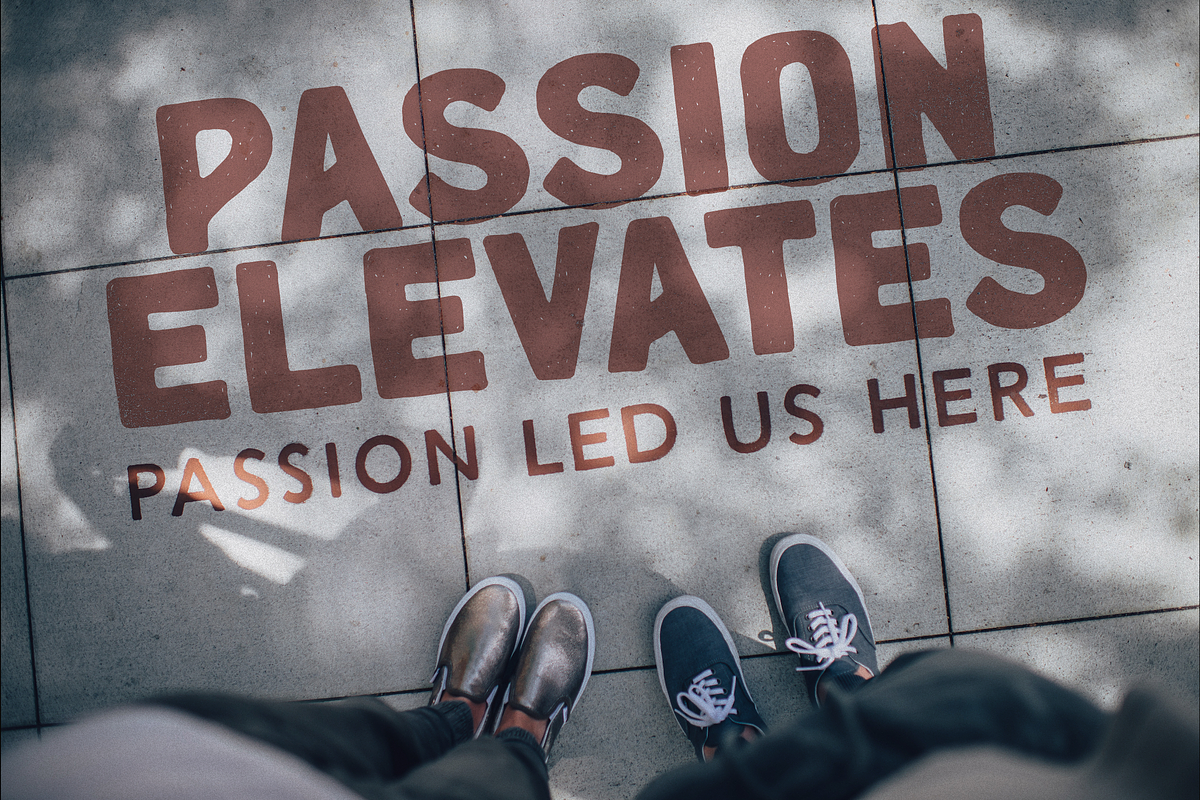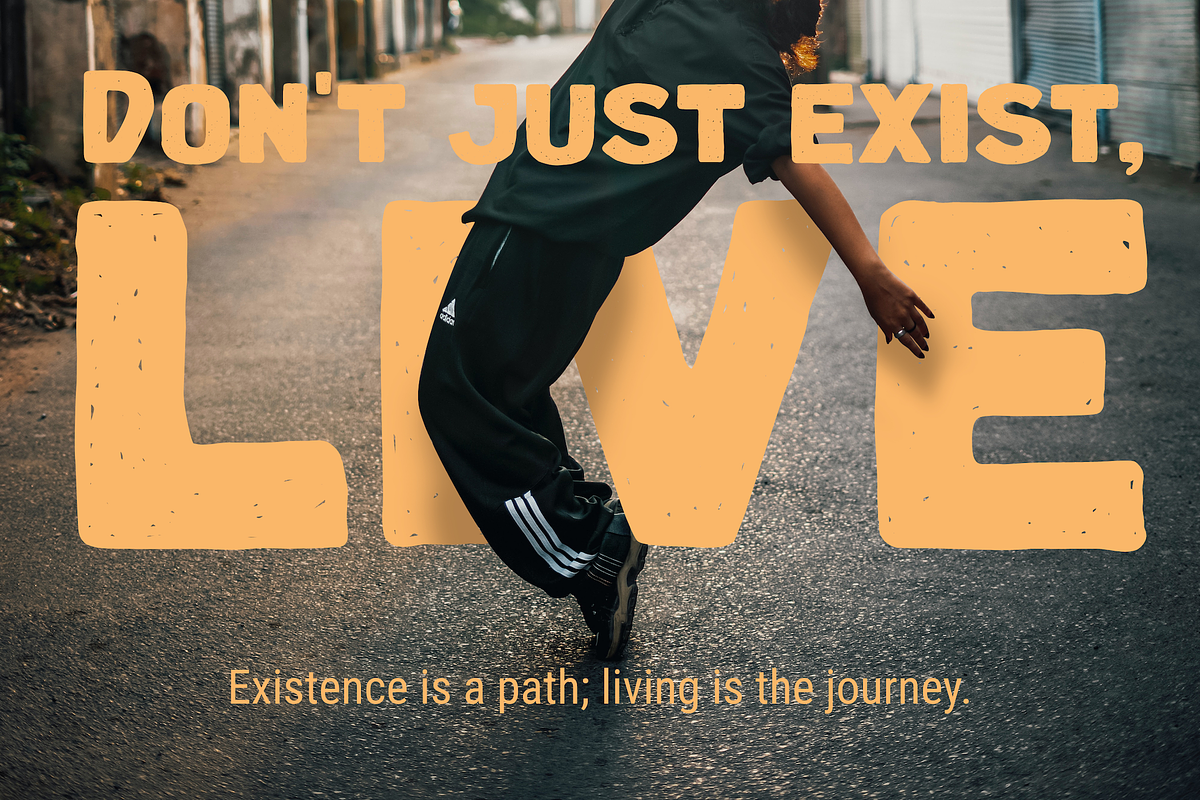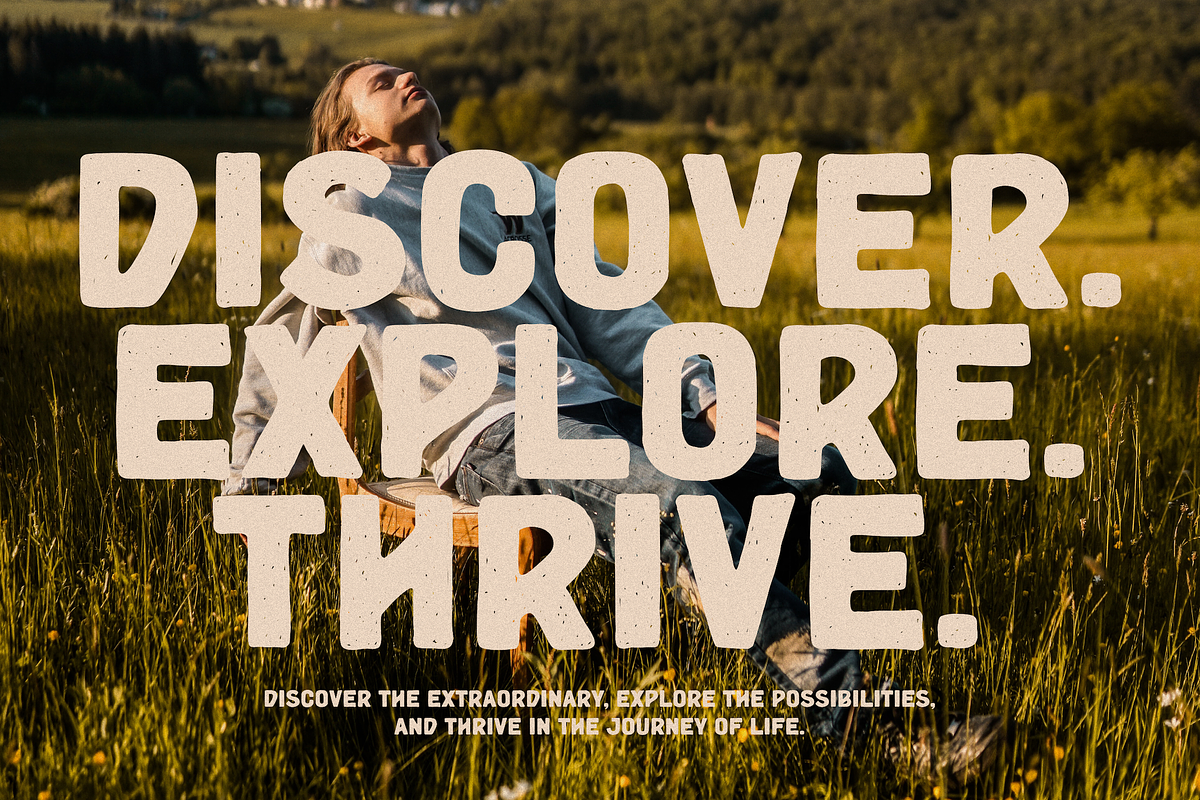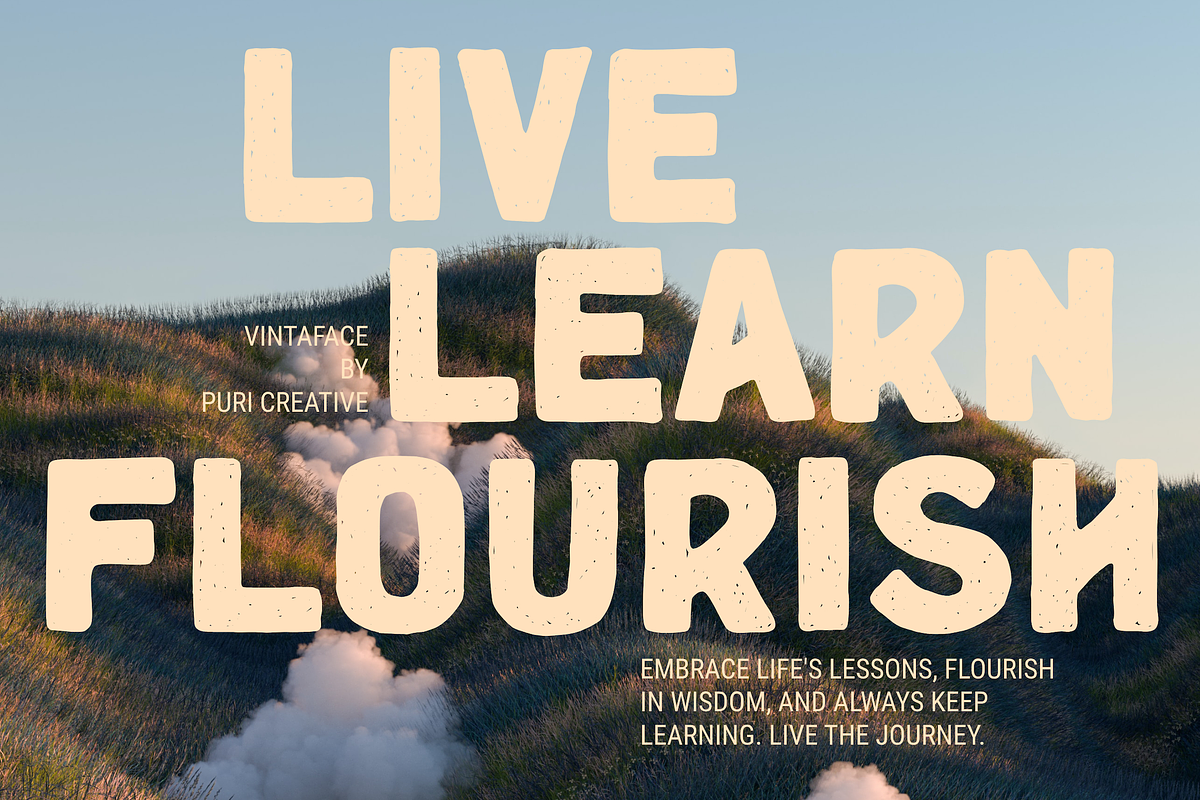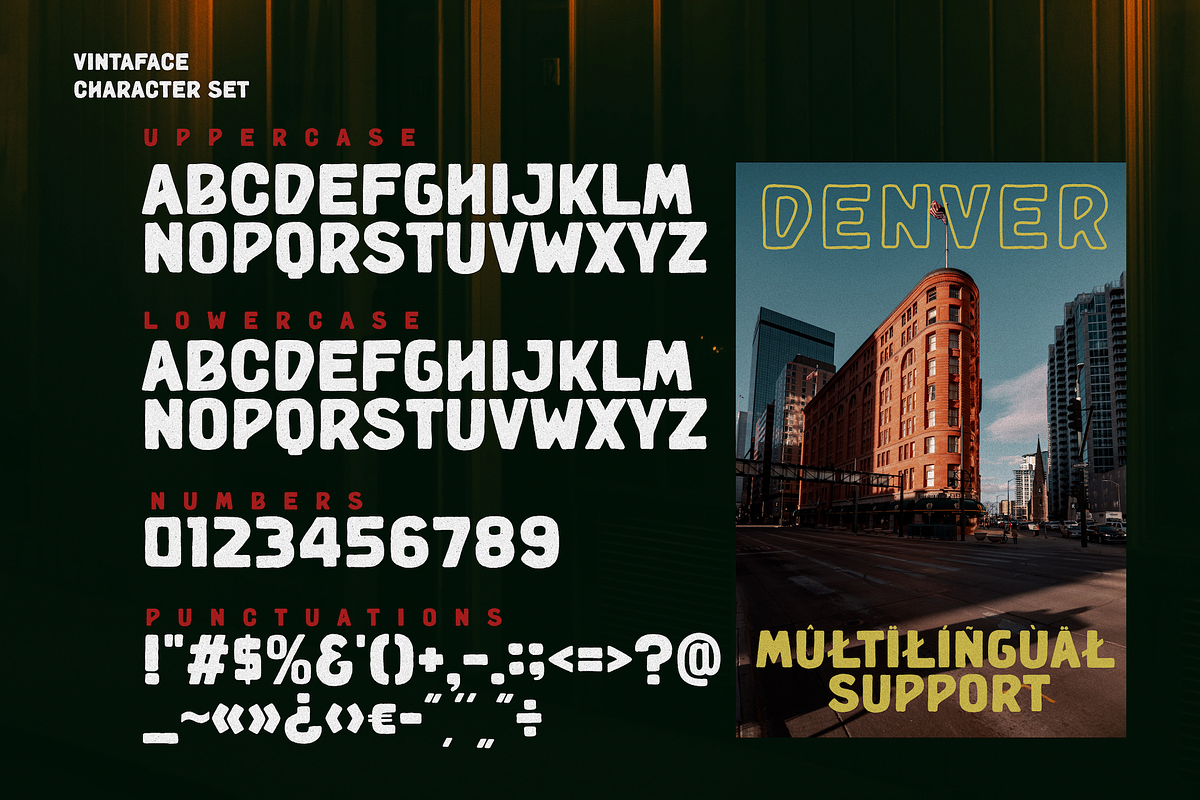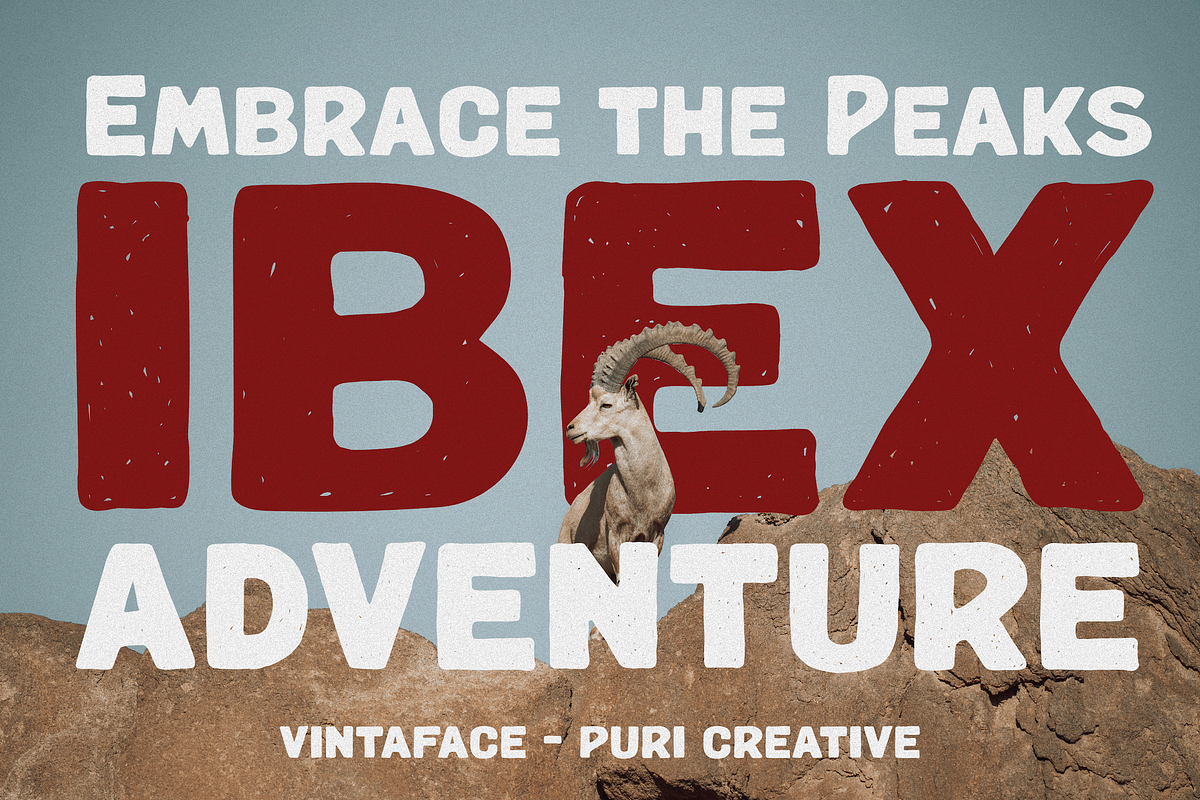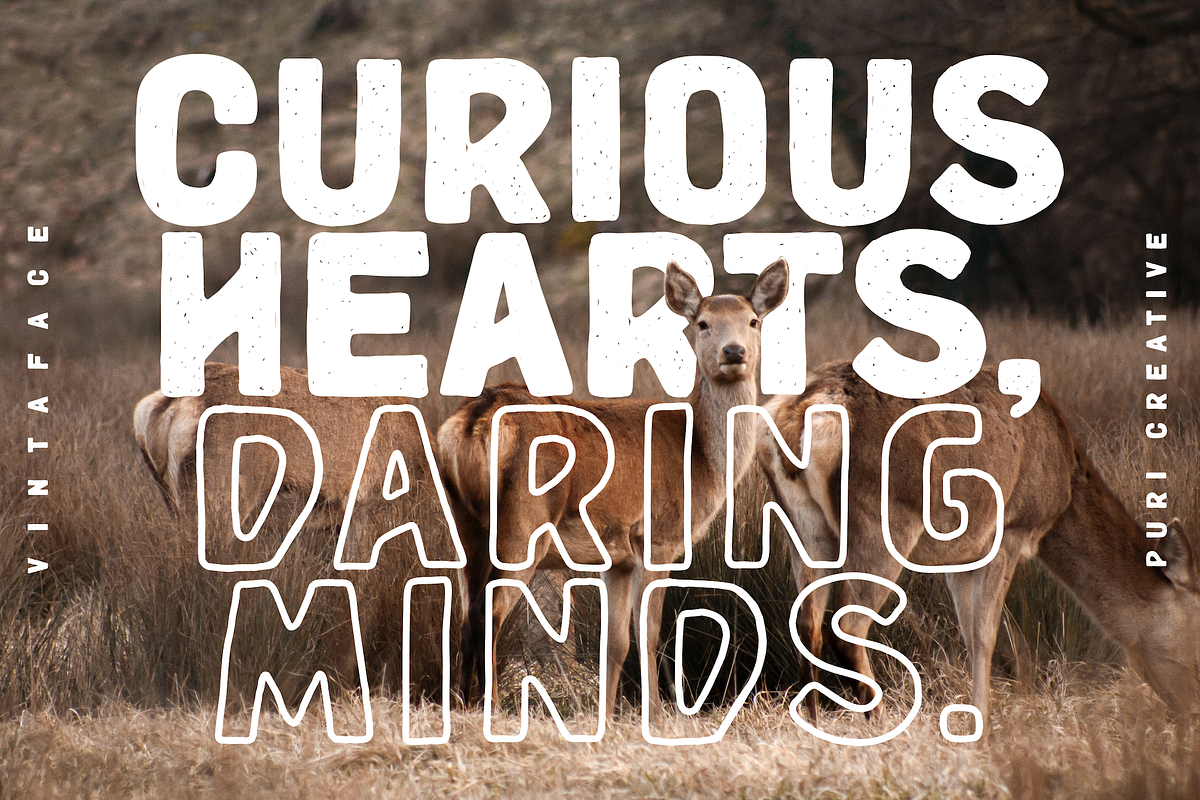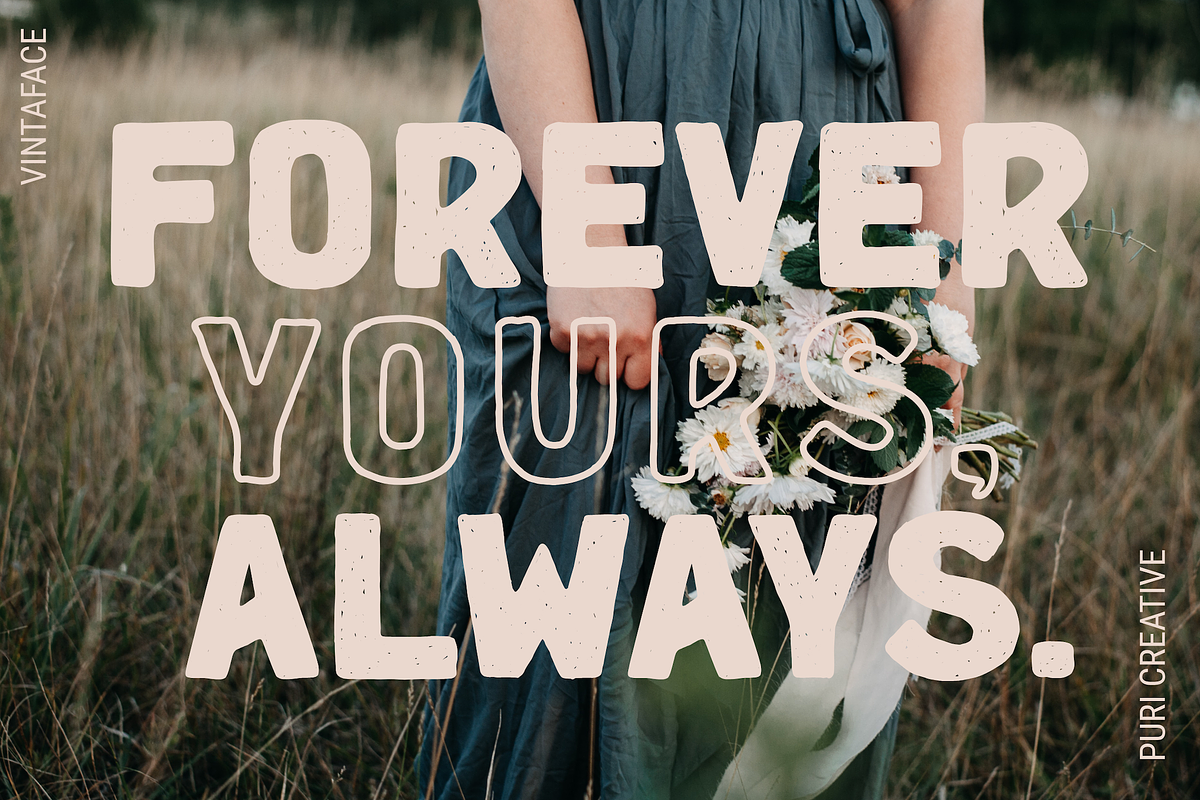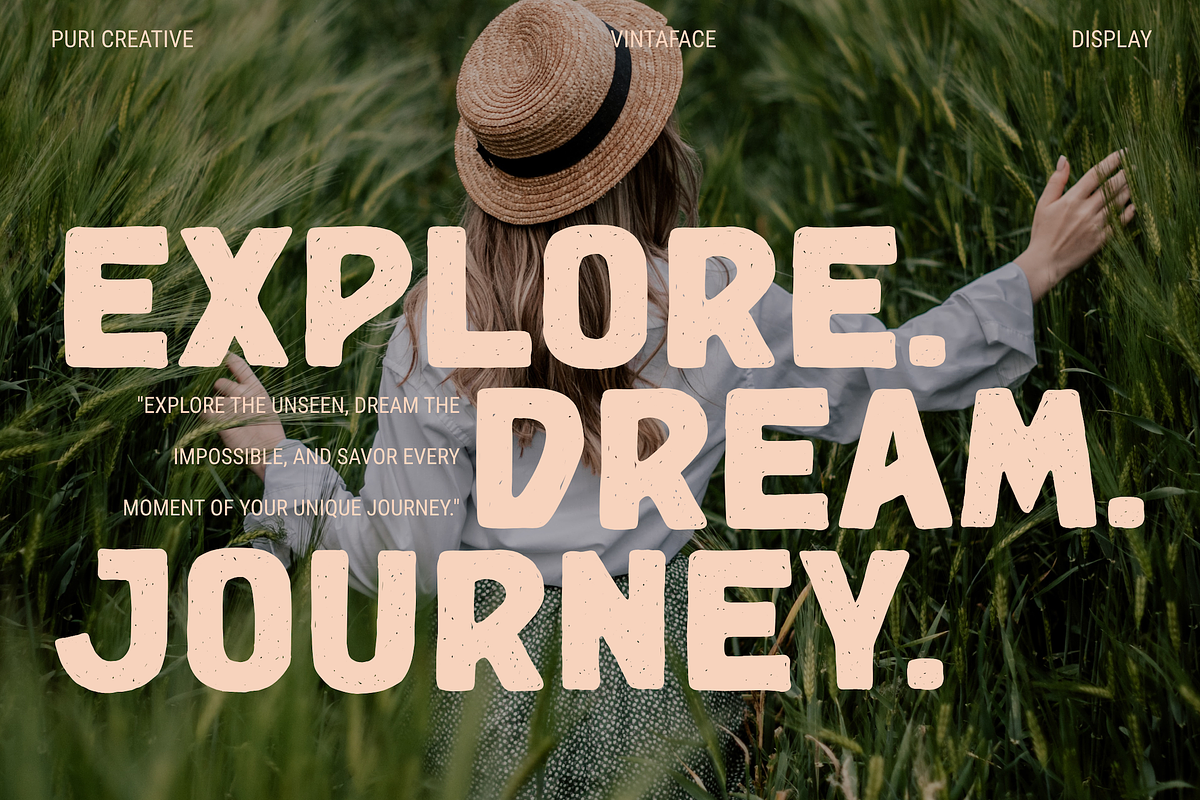
Vintaface - Vintage Style Font
Introducing VINTAFACE
VINTAFACE is a sans serif font in traditional vintage style, with two kinds of styles, namely regular and outline. This font look and feel classic with a touch rough edges and make it look like a hand drawn font, it comes with all caps.
VINTAFACE is perfectly made to be applied for making logo designs, headline, badges, packaging, posters, t-shirt designs and more. Hope you like this font!
- Number and punctuation